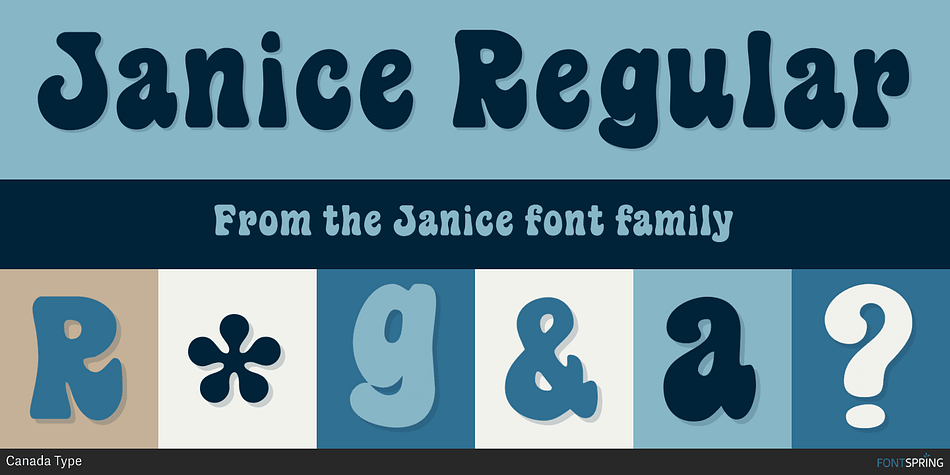
Janice is a comic and retro font published by Canada Type.
After making Jimi, the proverbial classic rock poster font, we needed to create another psychedelic font, but this time including a set of lowercase letters. We named it Janice, after Janice Joplin, the popular American 1960s singer and perfect example of hippie spirit.
The idea for Janice is from an early 1970s photo type sample that was eating dust on the study’s shelves.
This font is quite useful not only for reliving the classic rock era, but also for any fun headlines or children book covers.